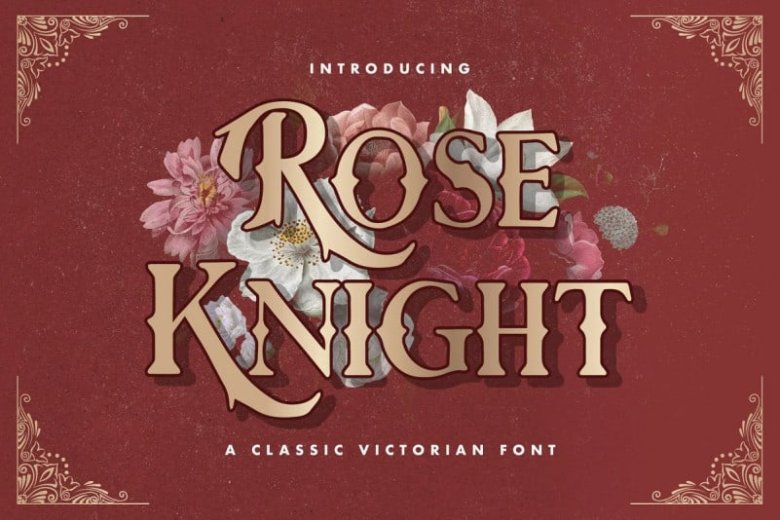
Rose Knight Font
Rose Knight Display Font is a stylish and unique vintage font inspired by the decorative arts and architecture movement. Made from font designer named StringLabs.  Rose Knight is perfect for your project and allows you to create designs, headlines, posters, logos, badges, t-shirts and many more that are beautiful.